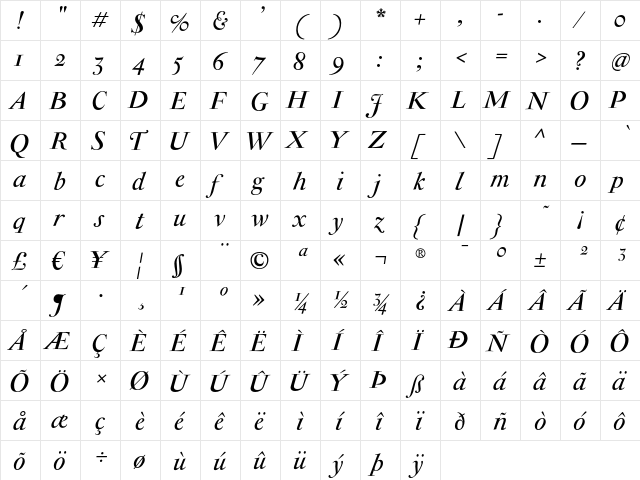
Antique Moderne Italic
| Designer | Frantisek Storm |
Design Context for Antique Moderne Typeface
Antique Moderne has the warm character of retro typography — evoking diners, record sleeves, and the golden age of print advertising. The slanted form adds forward momentum and visual energy.
Font Pairing: Combine Antique Moderne with a simple slab or neutral sans — period-accurate companions reinforce the vintage feel without competing for attention.
Pro Tip: Use Antique Moderne for headlines and pull quotes rather than body copy — its personality is best appreciated in short, focused bursts.